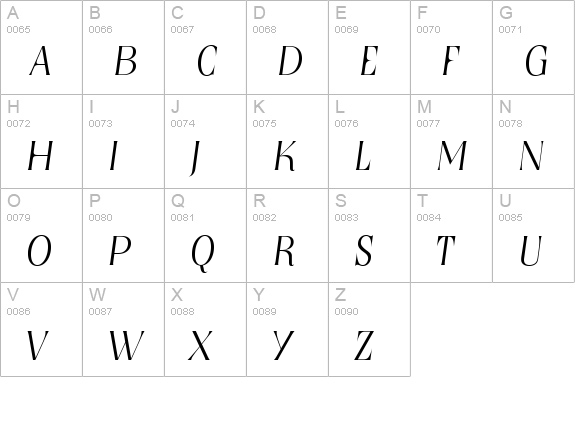
Nashville-XlightIta Font Details
Nashville-XlightIta font is a stunning and elegant typeface that exudes sophistication and modernity. Its clean lines and delicate curves make it perfect for a wide range of design projects, from branding to editorial design. The XlightIta variant of Nashville adds a touch of subtle italicization, giving your text a unique and dynamic look. What sets Nashville-XlightIta font apart is not only its beauty but also its accessibility. This font is available for free download at FontsMarket.com, making it easy for designers and creatives to incorporate it into their work without any cost. Whether you're designing a logo, creating a website, or working on a print project, Nashville-XlightIta font is a versatile and stylish choice that will elevate your designs to the next level.